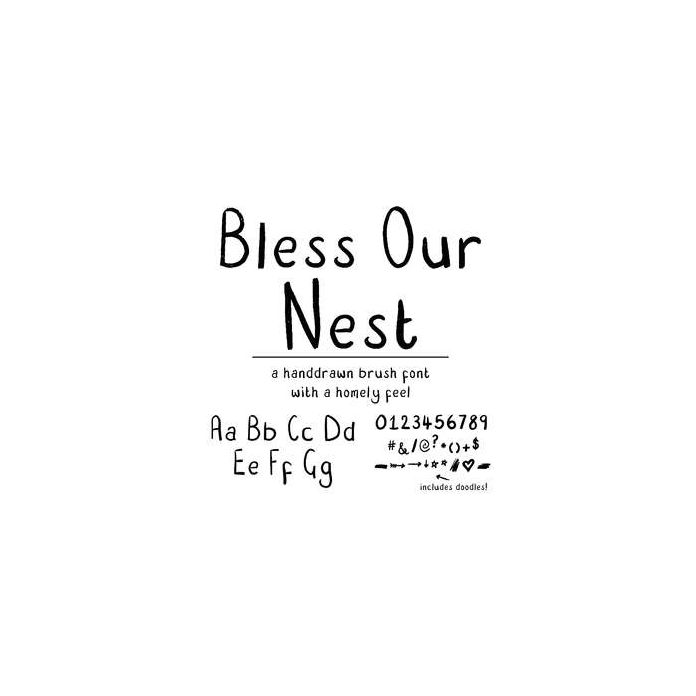
Bless Our Nest Handwritten Brush Font with upper and lowercase letters, numbers, punctuation, glyphs and doodles. All available via the character map / glyphs panel.